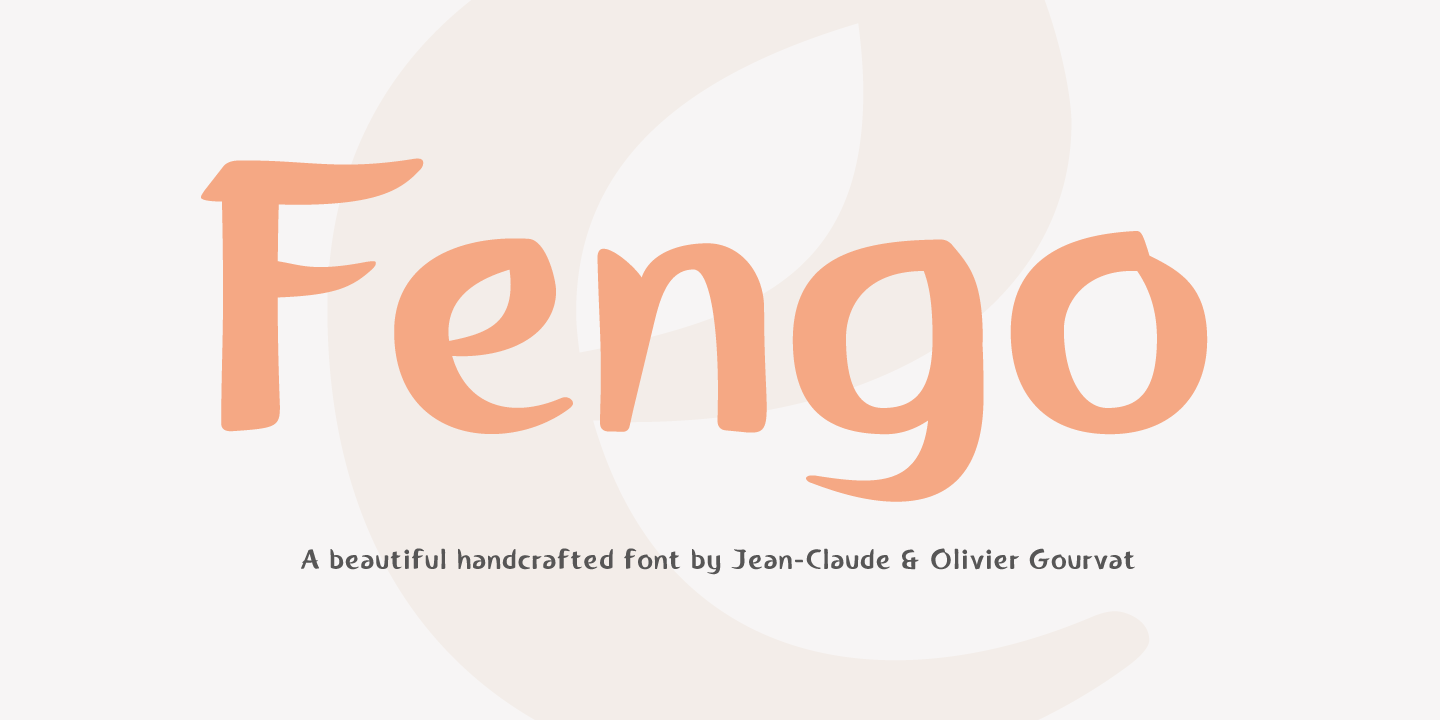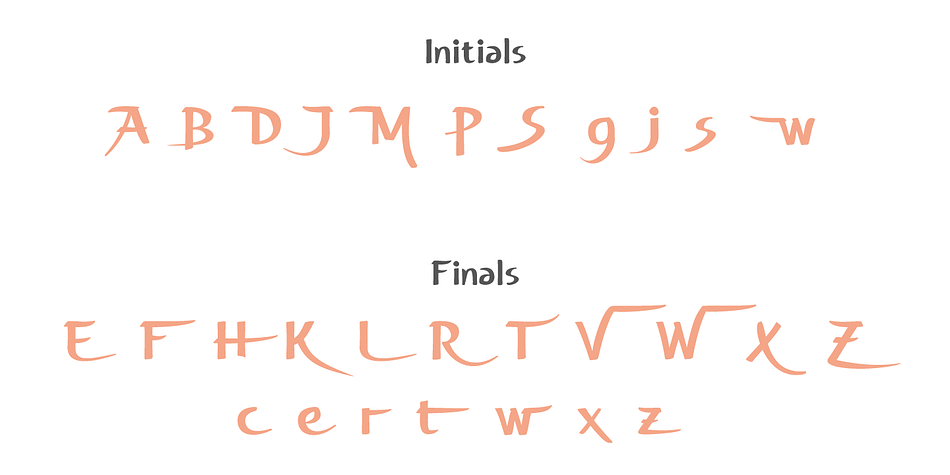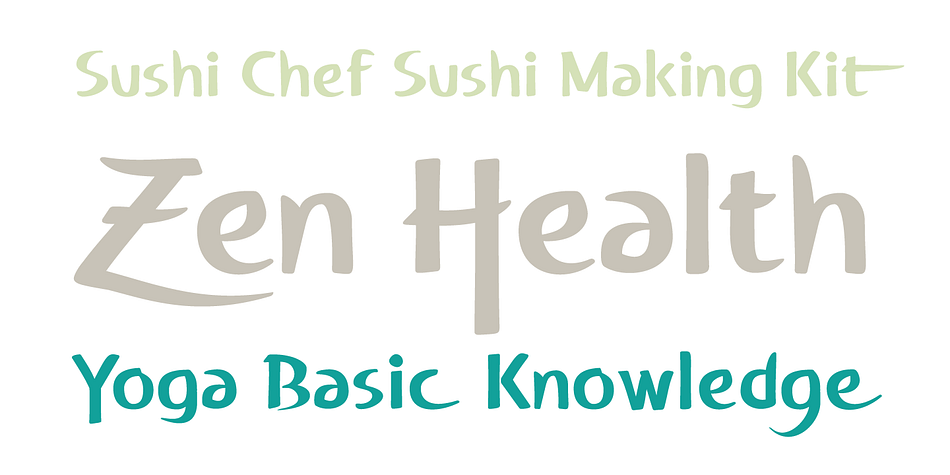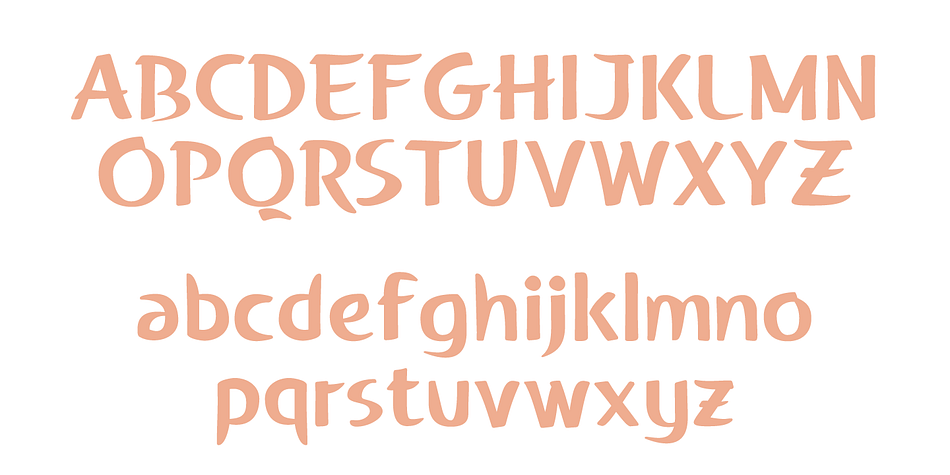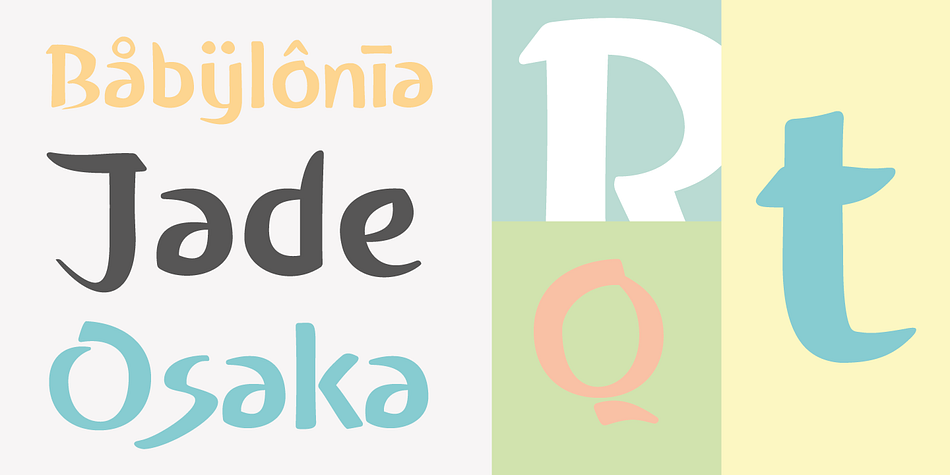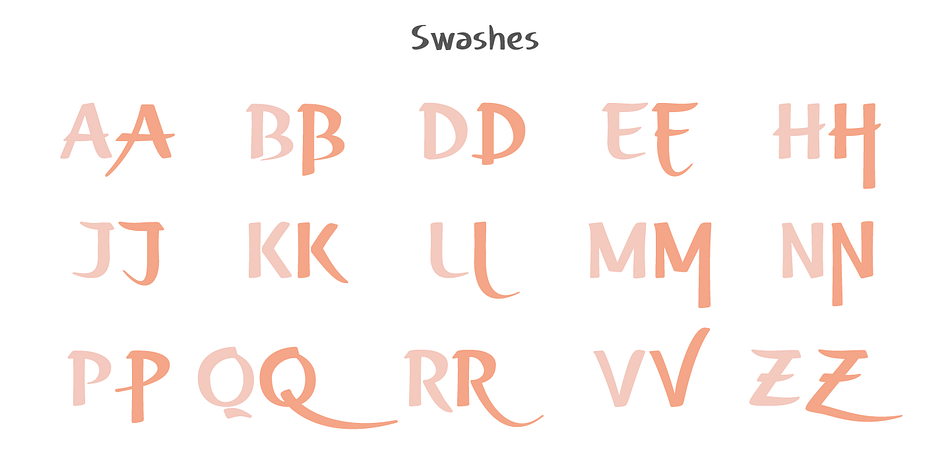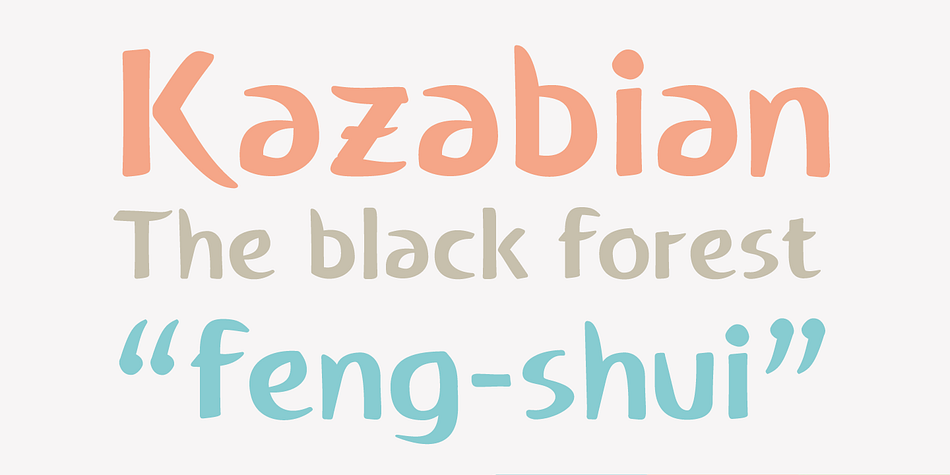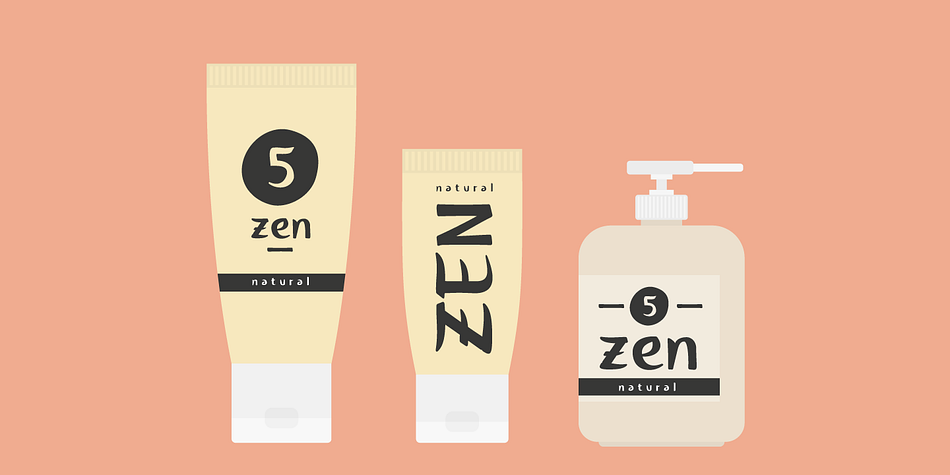
Designed by Jean-Claude Gourvat and Olivier Gourvat, Fengo is a foreign font published by Mostardesign.
Fengo is a beautiful handlettering font inspired by Sino-Japanese and traditional Chinese hieroglyphic characters. As a result the font looks authentic and very friendly.
It contains a wide range of features such as initials, finals, swashes, arrows, circled numerals. Fengo can cover all kind of graphic design project from packaging, signage, branding, titles and more.
Fengo was designed in duo by Jean-Claude and Olivier Gourvat.